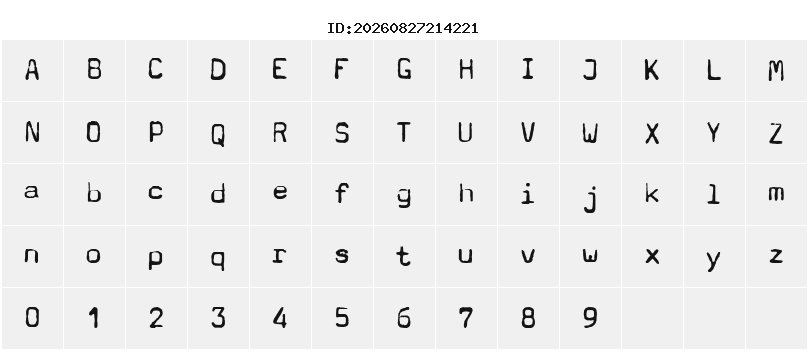
Typewriter - a602 (dead postman 2004) Preview
• Font Name: Typewriter - a602 (dead postman 2004)
• Full Font Name: Typewriter - a602 (dead postman 2004)
• Version: 2004; 1.0, a typed release
About Typewriter - a602 (dead postman 2004).ttf
Typewriter - a602 (dead postman 2004).ttf is a modern, elegant sans-serif font designed for ultimate readability and visual harmony. Perfect for branding, headlines, web design, and print materials.